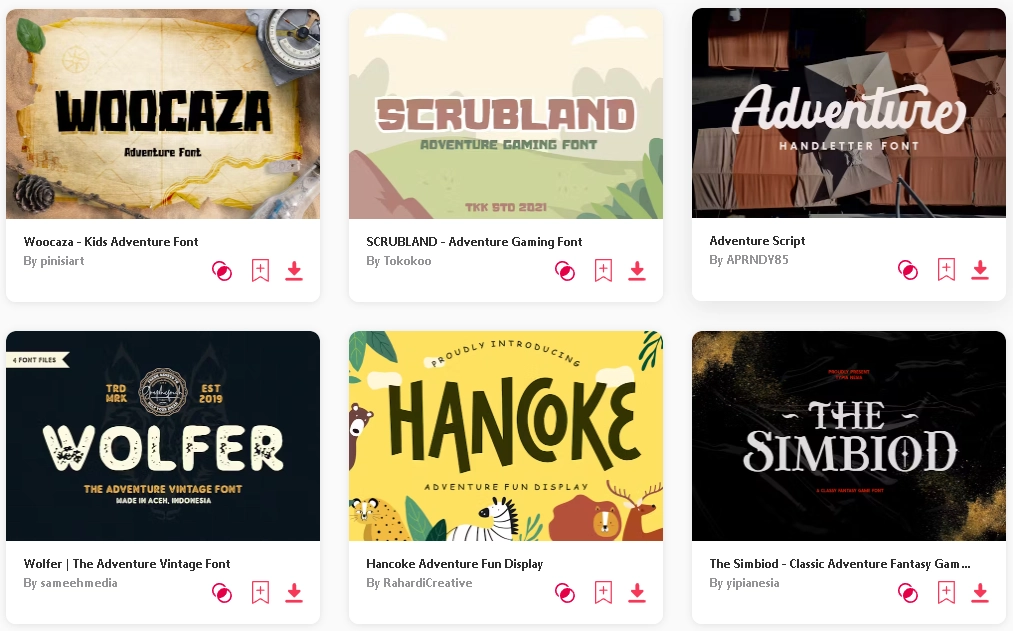
Ready for Adventure? Top 9+ Best Fonts for Epic Outdoor Designs You Can Buy
Embark on a typographic journey with our curated selection of the finest adventure fonts designed to ignite your wanderlust!
For creatives, the urge to explore goes hand in hand with the desire to express. Whether it’s capturing the essence of a far-off destination or evoking the thrill of discovery, adventure fonts play a crucial role in conveying the spirit of exploration through design.
Join us as we delve into a collection of fonts that embody the essence of adventure, perfect for travel enthusiasts, outdoor brands, and anyone seeking to infuse their projects with a sense of wanderlust and discovery.
1. Adventure Script Font
2. Richman Adventure Font
Richman Adventure Font – Infuse your designs with a sense of fun and excitement using the Richman Adventure Font. Whether you’re creating adventure-themed graphics, educational materials, or kids’ apparel, this font adds a playful touch to any project. Available in TTF format with bonus text styles in PSD, it offers versatility and creativity for a wide range of design needs.
3. Roghan Adventure Fonts
Roghan Adventure Fonts – Dive into the world of adventurous typography with Roghan Adventure Fonts. This modern and bold display font adds authenticity and flair to any design project. Whether you’re working on a logo, t-shirt design, or esport branding, this versatile font stands out in various contexts..
4. Bakso Urat Adventure Font
Bakso Urat Adventure Font – Embark on your design journey with Bakso Urat Adventure Font, one of the finest adventure fonts available. Perfect for captivating displays, labeling, apparel designs, movie posters, titles, album covers, logos, and beyond, this font brings a sense of adventure to any project. Download now and elevate your designs!
5. Oahyou Minna Cute Adventure Font
Oahyou Minna – Cute Adventure Font – Embrace the charm of Oahyou Minna, a delightful and whimsical handwritten font designed to add elegance and flair to your projects. With its unique blend of ligatures and graceful strokes, this font effortlessly transforms any design into a statement piece. Perfect for magazine titles, posters, logos, t-shirts, business cards, wedding invitations, and more, Oahyou Minna brings your creative ideas to life with its playful yet sophisticated style. Elevate your designs and captivate your audience with this versatile and charming font.
6. Adventure Strike Futuristic Display Font
Adventure Strike | Futuristic Display Typeface – Elevate your designs with the captivating allure of Adventure Strike, a futuristic display typeface with sleek calligraphic elements. Perfect for invitations, greeting cards, branding materials, posters, and more, this font adds a touch of sophistication to any project.
Discover its versatility through a range of alternative characters accessible via OpenType features like Stylistic Sets, Stylistic Alternates, Contextual Alternate, SWASH, and Ligature. Compatible with various design software including Adobe Illustrator, Adobe InDesign, Adobe Photoshop, Corel Draw X, and Microsoft Word, Adventure Strike ensures seamless integration into your creative workflow. Plus, with PUA unicode encoding, this font guarantees hassle-free usage across platforms.
7. Adventures in the Snow Font